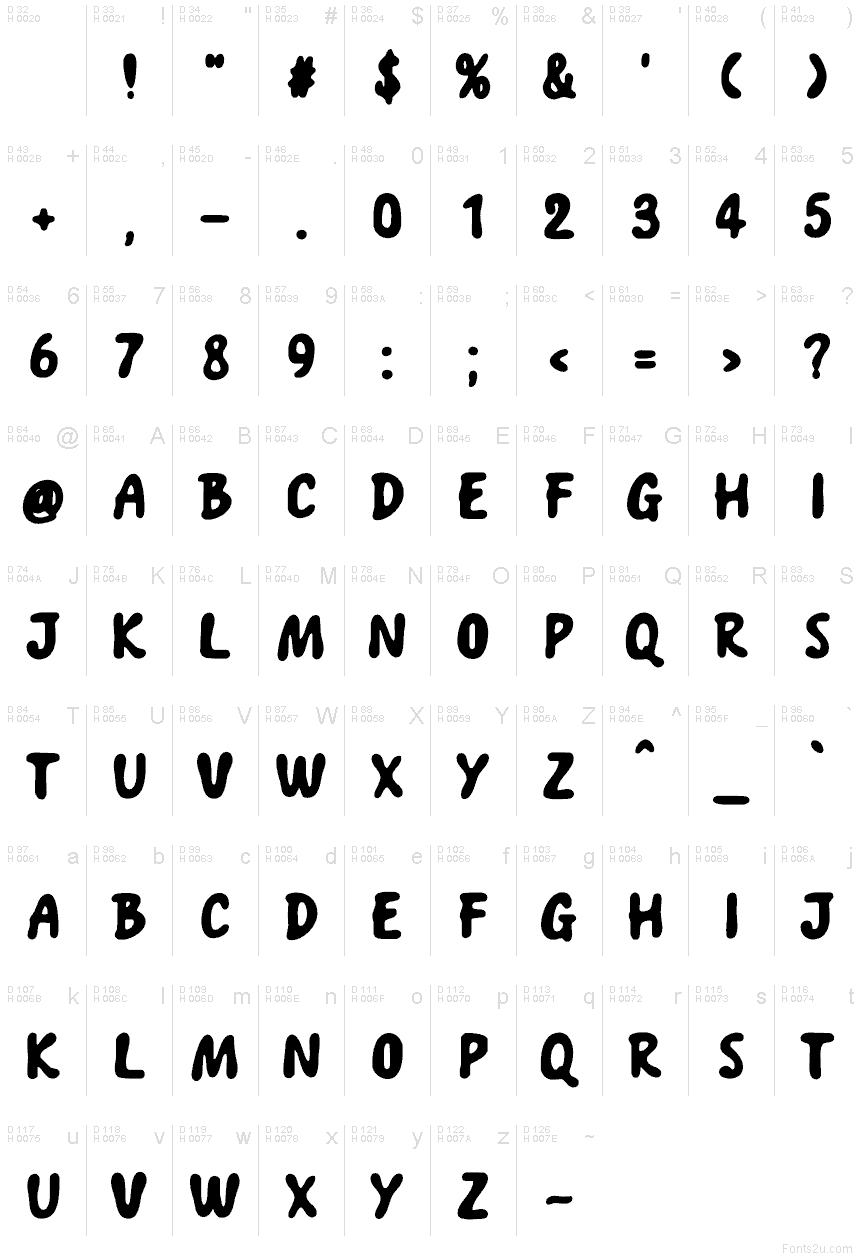
Sardinella
Sardinella font by Origin Type is a free cartoon display typeface with bold, inky shapes that feel hand-drawn and wonderfully bouncy. Each letter looks a bit like it’s been puffed up with air, with soft curves and squishy silhouettes that instantly read as fun and friendly. The tight rhythm of the forms keeps even wild, energetic titles feeling cohesive, so you get maximum personality without losing legibility.
Using Sardinella, you can bring a playful spark to children’s book covers, snack or candy packaging, game titles, YouTube thumbnails, event posters, and sticker-style logos. This free font shines when it’s set big and loud, where the chunky outlines and organic wobble can really show off. For longer supporting text, pair Sardinella with a clean rounded sans serif to keep everything readable while letting the headline do the talking.